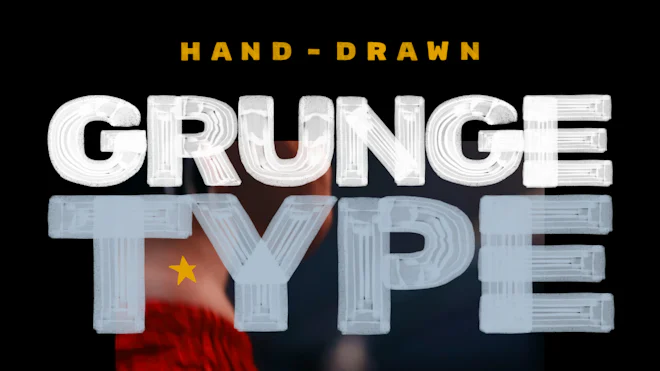
This stock motion graphics video pack includes 53 clips of a 2D grunge alphabet, numbers, punctuation marks and special characters on a transparent alpha channel.